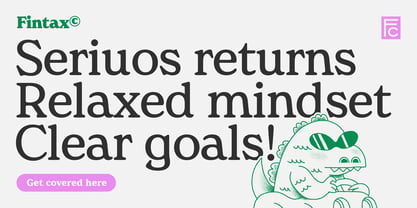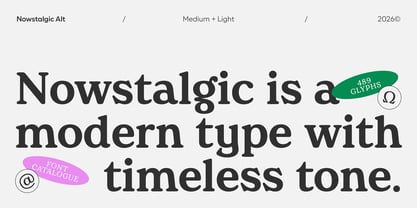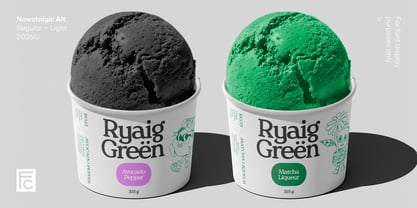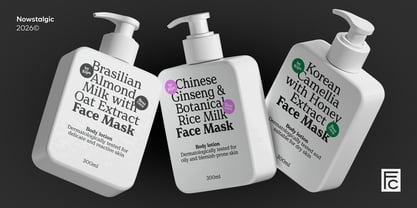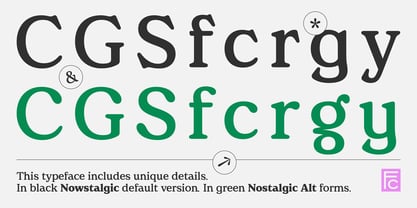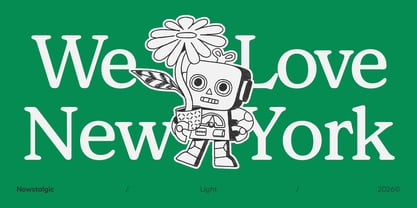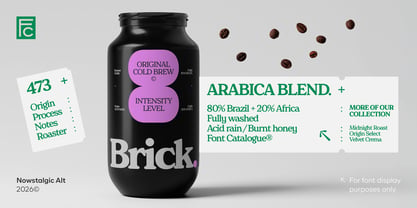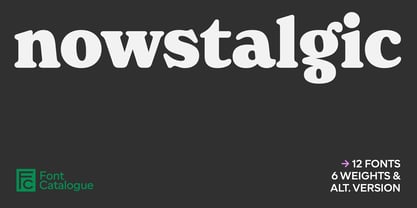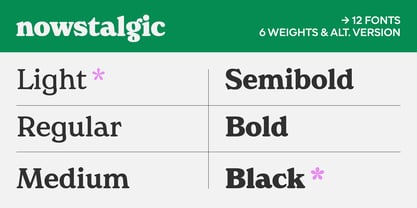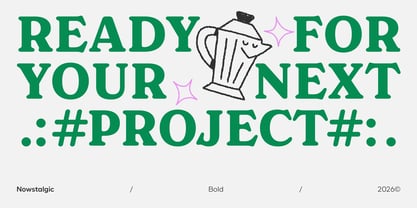
Nowstalgic
by Font Catalogue
Nowstalgic is a contemporary sans-serif inspired by Windsor, a typeface known for its widespread use, from the Whole Earth Catalog to Woody Allen's film credits. Nowstalgic refines this legacy, preserving its warmth while introducing a more sophisticated typographic system. The result is a balance of familiarity and freshness, offering both emotional resonance and functional clarity. The design features soft geometry, subtle humanist details, and a consistent typographic color achieved through controlled contrast across all weights and sizes. Alternates are integral to the system: the alternate g references Benguiat's two-story form, while c, s, f, and their uppercase counterparts introduce distinctive terminal treatments that move the tone from neutral to expressive. The mixed-bowl g with a teardrop terminal adds a detail that bridges vernacular and refined aesthetics. These alternates provide designers with two distinct voices within one family. Rounded terminals and open apertures create a warm, approachable texture throughout all styles. Proportions are precisely calibrated for effective use in branding, packaging, editorial, and digital applications. With a uniform rhythm and consistent typographic color, Nowstalgic maintains its character at both display and text sizes. Built for brands that feel like something.